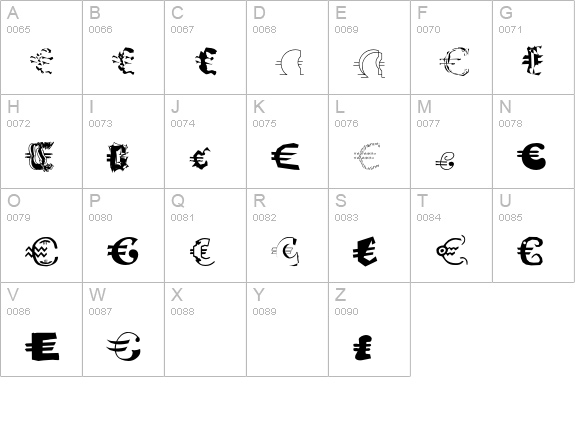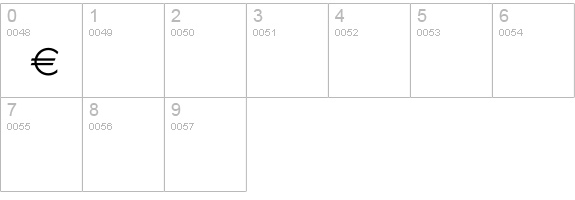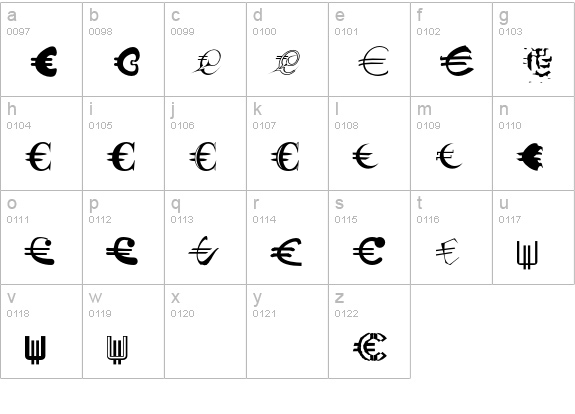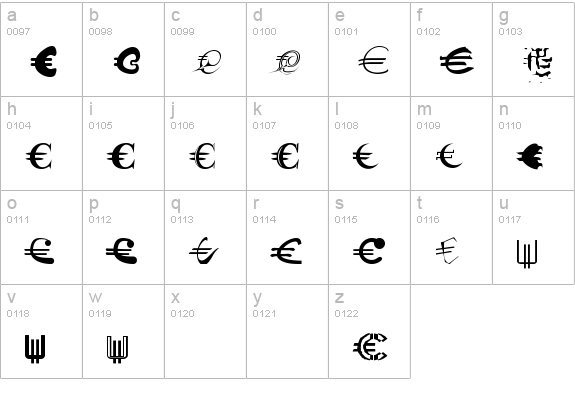
EuroDecoEF-Two Font Details
EuroDecoEF-Two font is a stunning display typeface that combines elements of European Art Deco with a modern twist. Its elegant and sophisticated design makes it perfect for creating eye-catching headlines, logos, and branding materials. The font features clean lines, sharp angles, and unique letterforms that exude a sense of luxury and style. What sets EuroDecoEF-Two font apart is that it is available for free download at FontsMarket.com. This means that you can easily access this premium font without any cost, making it a valuable addition to your font collection. Whether you're a designer looking to add a touch of elegance to your projects or a business owner in need of a standout logo, EuroDecoEF-Two font is a versatile and impactful choice that will elevate your designs to the next level.